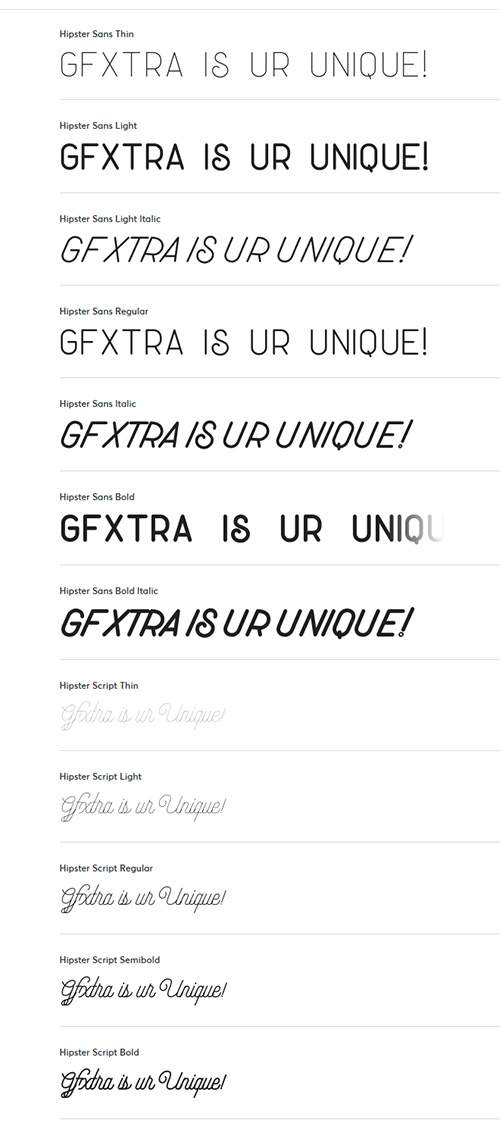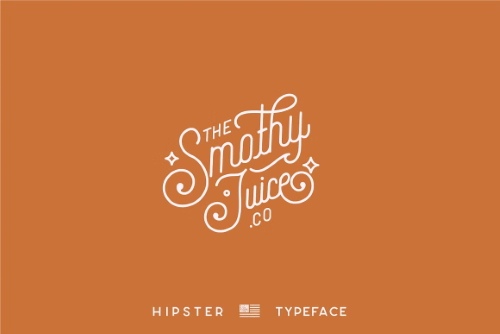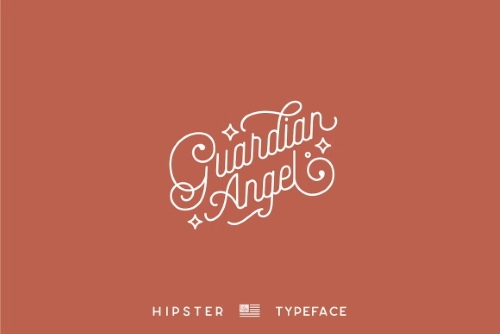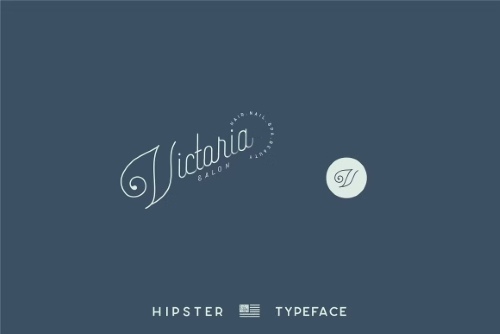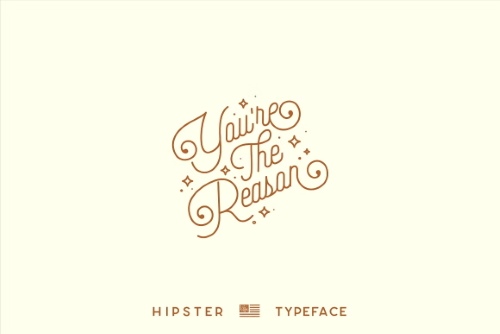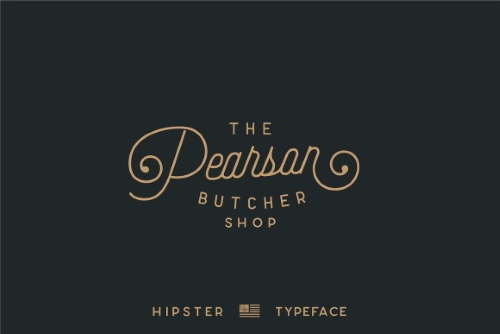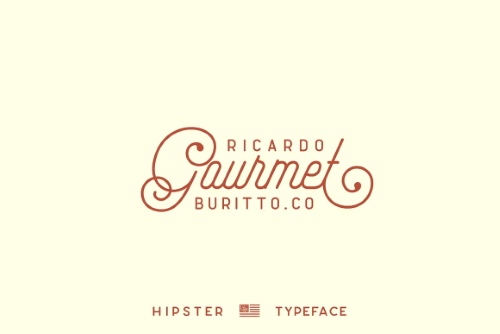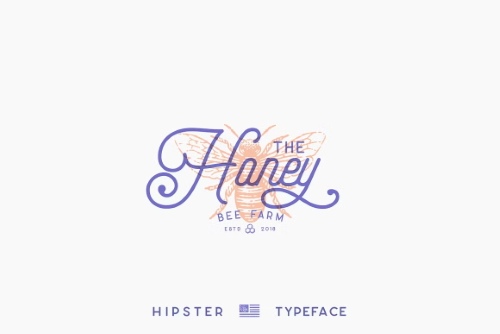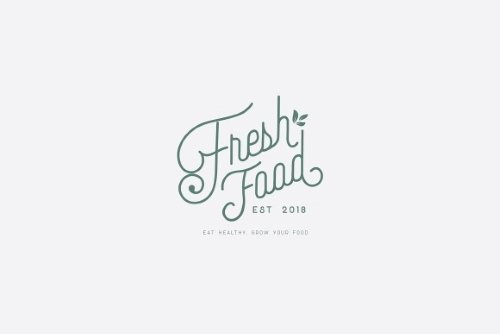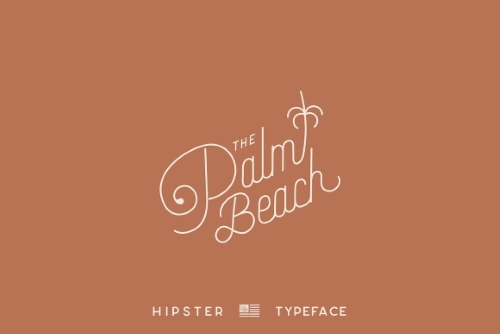
- Hipster Script and Sans is an elegant vintage handcrafted font duo with a ton of beautiful alternates. Its a hand-made monoline script and pair sans serif, inspired from vintage and retro culture with modern touch. Perfect for branding projects, Logo design, Clothing Branding, product packaging, magazine headers, or simply as a stylish text overlay to any background image. Get 5 Hipster Script Styles + 7 Simple Sans serif A perfect typeface pair with for you to try. That's 12 font files in total! ...